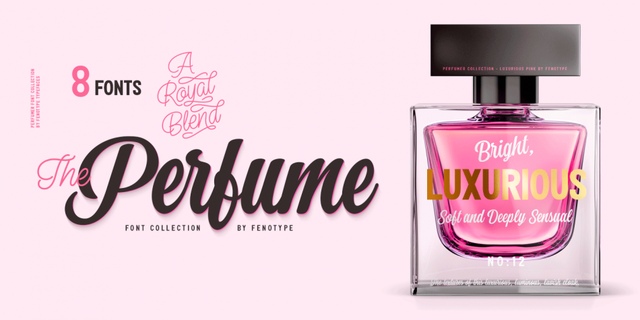
Perfume Font
Perfume Font is perfect for luxury fragrance branding, cosmetics packaging design, high-end beauty product labels, elegant perfume bottle graphics, sophisticated beauty salon materials, luxury spa communications, premium skincare packaging, fragrance advertisement campaigns, beauty magazine layouts, elegant cosmetic store signage, perfume collection catalogs, and aromatic projects that require refined, sensual typography with luxury sophistication and fragrant elegance.
What makes Perfume Font so exciting is its intoxicating elegance and sensual sophistication that embodies the alluring mystique and luxurious essence of premium fragrances and beauty products. This typeface features graceful letterforms with delicate curves and refined characteristics that evoke the ethereal beauty of fragrant mists, elegant bottle designs, and the sophisticated artistry of perfume creation. The font's sensual character and luxury appeal make it perfect for beauty brands and fragrance houses that want to communicate elegance, allure, and the kind of sophisticated sensuality that defines premium beauty and fragrance experiences.
Perfume Font typically comes in multiple weights and styles including Light, Regular, Medium, and Bold variations. Many versions also include elegant swashes, luxury ornaments, and beauty-themed decorative elements that enhance the font's fragrance functionality and provide designers with comprehensive tools for creating sophisticated, scent-inspired typography compositions that capture the essence of luxury beauty products.
Whether you're designing fragrance packaging, beauty product branding, or luxury cosmetics marketing, Perfume Font delivers exceptional sensual elegance and luxury authenticity that connects with audiences who appreciate premium beauty products and sophisticated fragrance experiences. Its refined, graceful appearance works beautifully with luxury color palettes and elegant beauty imagery, creating designs that feel both sensuously appealing and professionally luxurious.
The exquisitely crafted letterforms of Perfume Font demonstrate masterful attention to the delicate details that make luxury beauty typography both visually stunning and emotionally captivating. Each character has been designed to maintain perfect readability while delivering the sensual personality that makes fragrance and beauty communications feel authentically luxurious and sophisticatedly alluring for discerning beauty consumers.